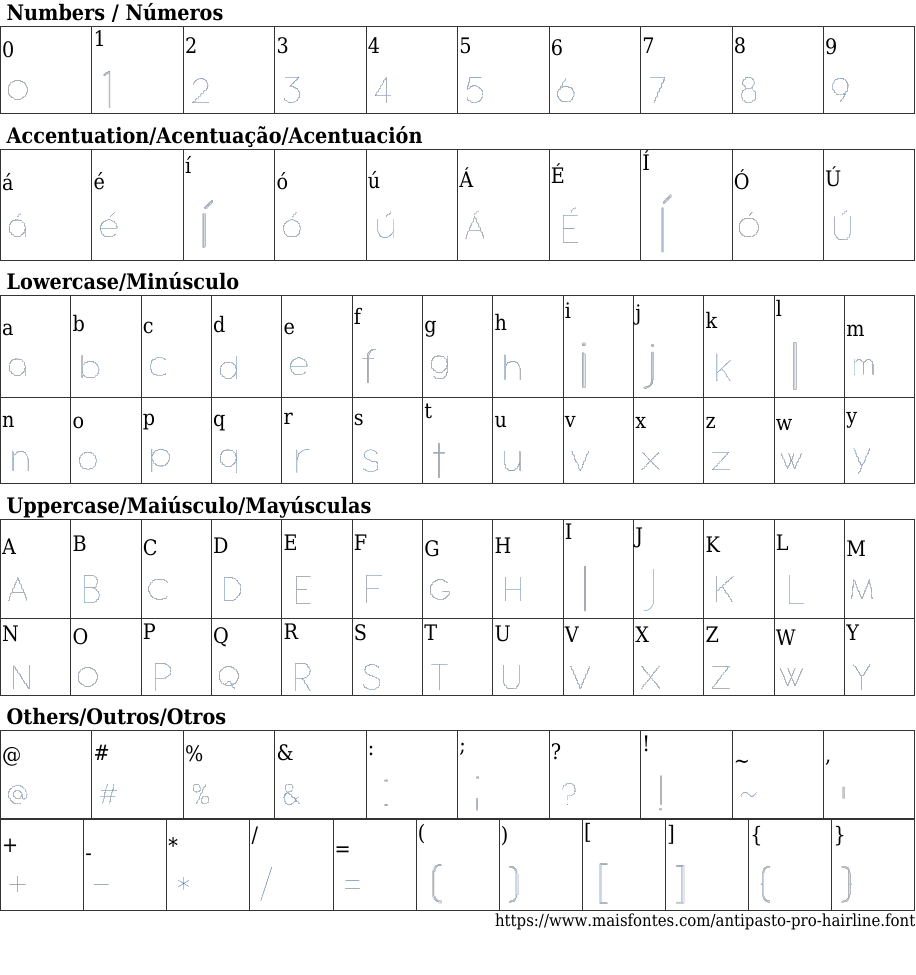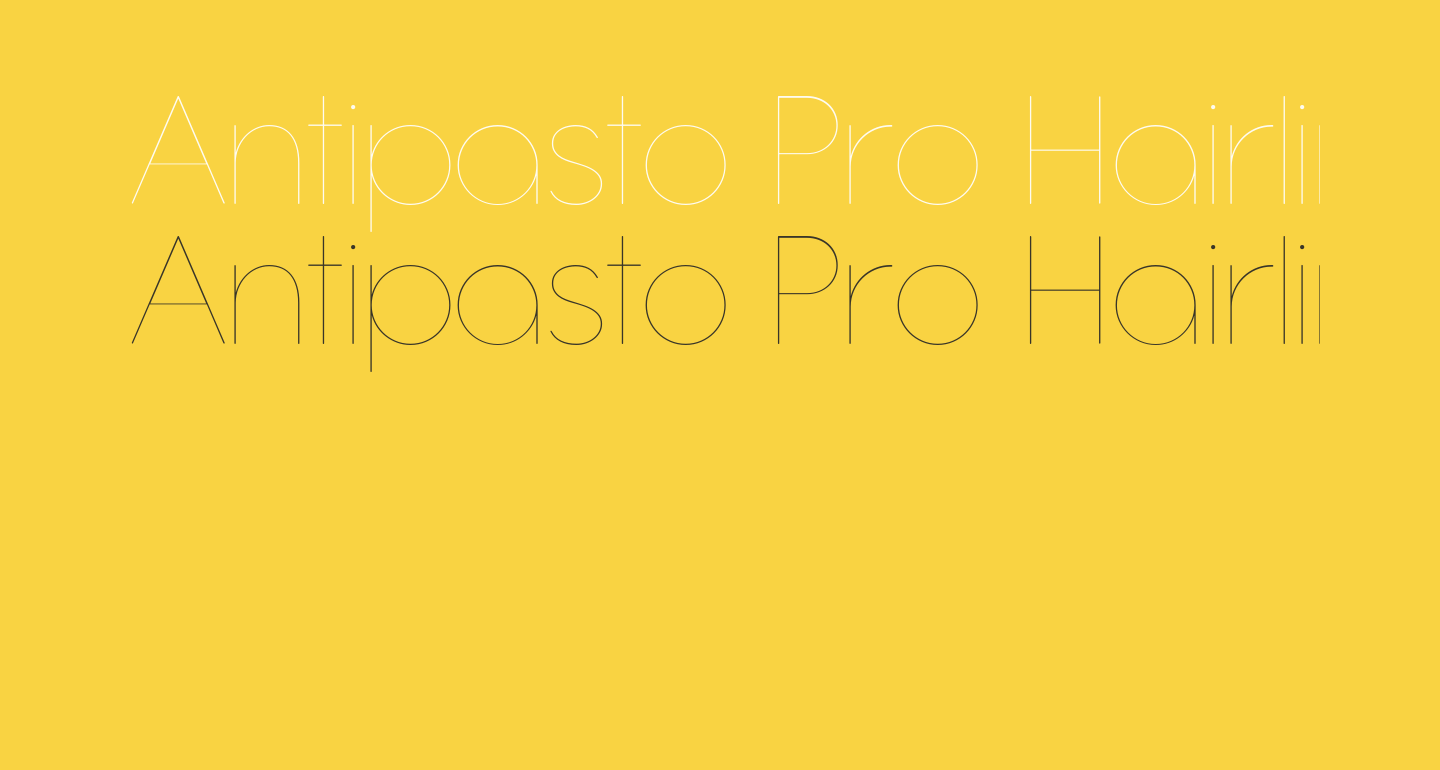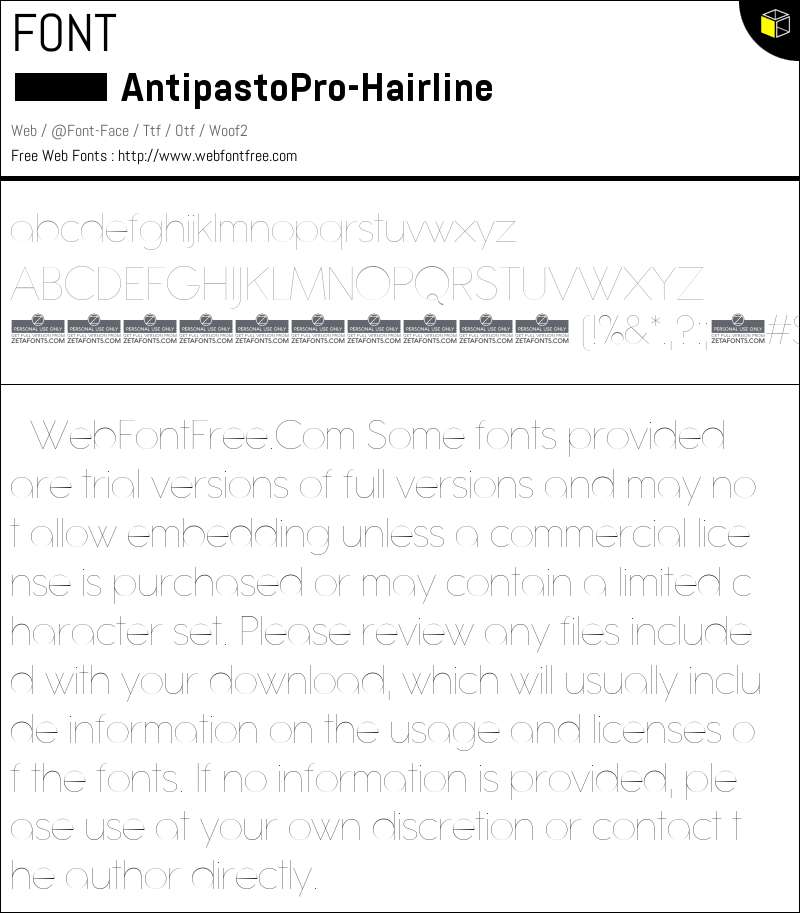
Antipasto Pro Hairline Font . The original family of three weights has been revised and expanded in 2017 with antipasto pro that now includes cyrillic and greek characters,. Download and install the antipasto pro hairline font for free from ffonts.net. ️ this font has been downloaded 200+ times. Antipasto pro is a geometric sans serif font with 17 styles and family package options. It is designed by zetafonts and. The original family of three weights has been revised and expanded in 2017 with antipasto pro that now includes cyrillic and greek characters, open type features (small caps. Antipasto is a sans serif font with two styles and sample specimens. Antipasto pro is a geometric sans serif font family with six weights and 619 characters. Download and install it for free, or read the license agreement before using it for commercial or personal. It supports cyrillic and greek characters, open type features, and icons. The original family of three weights has been revised and expanded in 2017 with antipasto pro that now includes cyrillic and greek characters,.
The original family of three weights has been revised and expanded in 2017 with antipasto pro that now includes cyrillic and greek characters,. Antipasto pro is a geometric sans serif font with 17 styles and family package options. Download and install the antipasto pro hairline font for free from ffonts.net. The original family of three weights has been revised and expanded in 2017 with antipasto pro that now includes cyrillic and greek characters, open type features (small caps. It supports cyrillic and greek characters, open type features, and icons. Antipasto pro is a geometric sans serif font family with six weights and 619 characters. ️ this font has been downloaded 200+ times. Download and install it for free, or read the license agreement before using it for commercial or personal. It is designed by zetafonts and. Antipasto is a sans serif font with two styles and sample specimens.
Antipasto Pro Hairline Font The original family of three weights has been revised and expanded in 2017 with antipasto pro that now includes cyrillic and greek characters,. The original family of three weights has been revised and expanded in 2017 with antipasto pro that now includes cyrillic and greek characters,. Antipasto pro is a geometric sans serif font with 17 styles and family package options. The original family of three weights has been revised and expanded in 2017 with antipasto pro that now includes cyrillic and greek characters,. Download and install the antipasto pro hairline font for free from ffonts.net. The original family of three weights has been revised and expanded in 2017 with antipasto pro that now includes cyrillic and greek characters, open type features (small caps. ️ this font has been downloaded 200+ times. Download and install it for free, or read the license agreement before using it for commercial or personal. It is designed by zetafonts and. Antipasto is a sans serif font with two styles and sample specimens. It supports cyrillic and greek characters, open type features, and icons. Antipasto pro is a geometric sans serif font family with six weights and 619 characters.
Antipasto Pro Hairline Baixar Fonte Grátis MaisFontes Antipasto Pro Hairline Font ️ this font has been downloaded 200+ times. Antipasto is a sans serif font with two styles and sample specimens. Download and install it for free, or read the license agreement before using it for commercial or personal. Antipasto pro is a geometric sans serif font with 17 styles and family package options. The original family of three weights has. Antipasto Pro Hairline Font.
Antipasto Pro Font Free Download Antipasto Pro Hairline Font The original family of three weights has been revised and expanded in 2017 with antipasto pro that now includes cyrillic and greek characters,. It supports cyrillic and greek characters, open type features, and icons. Antipasto pro is a geometric sans serif font family with six weights and 619 characters. Download and install the antipasto pro hairline font for free from. Antipasto Pro Hairline Font.
Antipasto Pro DemiBold Font xFonts.pro Antipasto Pro Hairline Font It supports cyrillic and greek characters, open type features, and icons. Antipasto is a sans serif font with two styles and sample specimens. The original family of three weights has been revised and expanded in 2017 with antipasto pro that now includes cyrillic and greek characters,. Antipasto pro is a geometric sans serif font with 17 styles and family package. Antipasto Pro Hairline Font.
Antipasto Font Family Creative Alys Antipasto Pro Hairline Font It supports cyrillic and greek characters, open type features, and icons. The original family of three weights has been revised and expanded in 2017 with antipasto pro that now includes cyrillic and greek characters,. Antipasto pro is a geometric sans serif font with 17 styles and family package options. It is designed by zetafonts and. The original family of three. Antipasto Pro Hairline Font.
Antipasto Pro Font YouWorkForThem Antipasto Pro Hairline Font ️ this font has been downloaded 200+ times. Antipasto pro is a geometric sans serif font with 17 styles and family package options. It is designed by zetafonts and. Download and install the antipasto pro hairline font for free from ffonts.net. Antipasto is a sans serif font with two styles and sample specimens. It supports cyrillic and greek characters, open. Antipasto Pro Hairline Font.
Antipasto Font Fonts Studio Antipasto Pro Hairline Font Download and install it for free, or read the license agreement before using it for commercial or personal. Antipasto is a sans serif font with two styles and sample specimens. ️ this font has been downloaded 200+ times. Antipasto pro is a geometric sans serif font family with six weights and 619 characters. Antipasto pro is a geometric sans serif. Antipasto Pro Hairline Font.
Antipasto Fonts Shmonts Antipasto Pro Hairline Font The original family of three weights has been revised and expanded in 2017 with antipasto pro that now includes cyrillic and greek characters,. Download and install it for free, or read the license agreement before using it for commercial or personal. The original family of three weights has been revised and expanded in 2017 with antipasto pro that now includes. Antipasto Pro Hairline Font.
Antipasto Pro Font Free Download Antipasto Pro Hairline Font Download and install it for free, or read the license agreement before using it for commercial or personal. It is designed by zetafonts and. ️ this font has been downloaded 200+ times. It supports cyrillic and greek characters, open type features, and icons. Antipasto pro is a geometric sans serif font family with six weights and 619 characters. The original. Antipasto Pro Hairline Font.
Antipasto Pro Font Family All Free Fonts Antipasto Pro Hairline Font ️ this font has been downloaded 200+ times. The original family of three weights has been revised and expanded in 2017 with antipasto pro that now includes cyrillic and greek characters,. The original family of three weights has been revised and expanded in 2017 with antipasto pro that now includes cyrillic and greek characters, open type features (small caps. It. Antipasto Pro Hairline Font.